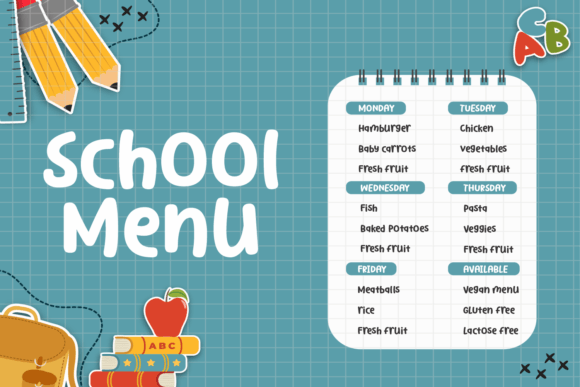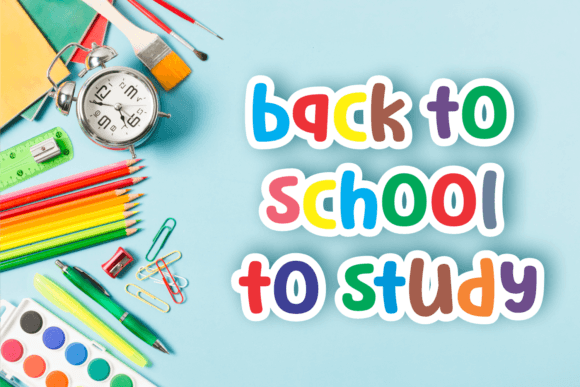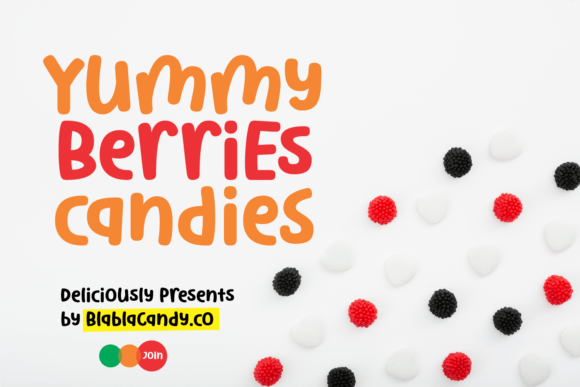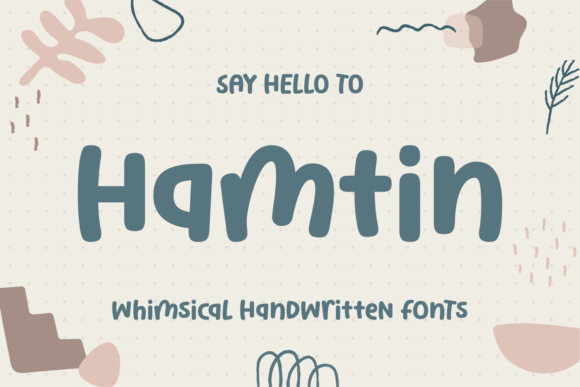
Discover the Elegance of Hamtin Font: Elevate Your Designs with its Unique Flair
In the world of typography, fonts play a crucial role in conveying messages, evoking emotions, and creating lasting impressions. For designers, crafters, and anyone looking to add a touch of sophistication to their projects, Hamtin font emerges as a game-changer. With its elegant, flowing curves and unique letterforms, Hamtin font is perfect for creating eye-catching headlines, logos, and social media posts. Its modern, attractive design will make any project stand out, setting it apart from the ordinary.
The Allure of Hamtin Font
Hamtin font boasts a distinctive charm that is hard to resist. Its elegant curves and fluid lines give it a modern yet timeless appeal, making it versatile for a wide range of applications. Whether you’re working on a branding project, crafting a social media post, or designing a logo, Hamtin font brings a level of sophistication and refinement that elevates your work.
Key Features of Hamtin Font
- Elegant Curves: Hamtin font’s flowing curves add a touch of grace to any design, making it perfect for projects that require a bit of sophistication.
- Unique Letterforms: The font’s distinctive letterforms set it apart from more traditional fonts, offering a fresh and modern look.
- Versatility: Hamtin font can be used across various platforms and applications, from digital media to print materials.
- Modern Appeal: Its contemporary design ensures that your projects look current and appealing to modern audiences.
Applications of Hamtin Font
The versatility of Hamtin font makes it suitable for a myriad of applications. Here are some of the most impactful ways to use this stunning font:
1. Creating Eye-Catching Headlines
Headlines are crucial for grabbing attention and conveying the essence of your message quickly. Hamtin font, with its elegant and flowing curves, is perfect for creating headlines that are not only visually appealing but also memorable.
2. Designing Logos
A logo is a brand’s identity, and using the right font can make all the difference. Hamtin font’s unique letterforms and modern appeal make it an excellent choice for logos that need to stand out and convey a sense of sophistication.
3. Crafting Social Media Posts
In the digital age, social media posts are a key way to engage with your audience. Hamtin font can add a touch of elegance to your posts, making them more attractive and engaging. Whether it’s a promotional post, a quote, or a story, Hamtin font ensures your content stands out in crowded feeds.
Tips for Using Hamtin Font Effectively
To maximize the impact of Hamtin font, consider the following tips:
- Pair with Complementary Fonts: When using Hamtin font alongside other fonts, choose ones that complement its elegance and modernity.
- Adjust Size and Weight: Experiment with different sizes and weights of Hamtin font to create visual hierarchy and emphasis in your designs.
- Consider Color: The color you pair with Hamtin font can significantly affect its appearance. Choose colors that enhance its elegance and modern appeal.
| Author | Damai (7NTypes) |
Hamtin font is a powerful tool for designers and crafters looking to add a touch of elegance and modernity to their projects. Its unique letterforms, elegant curves, and versatile nature make it perfect for a wide range of applications, from headlines and logos to social media posts. By incorporating Hamtin font into your designs, you can create visually stunning projects that capture attention and leave a lasting impression.
Whether you’re a professional designer or a DIY enthusiast, Hamtin font offers the perfect blend of style, versatility, and impact. So, why settle for ordinary when you can create something extraordinary with Hamtin font?